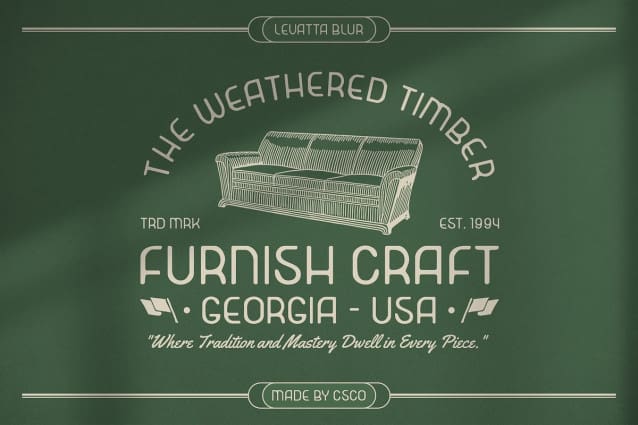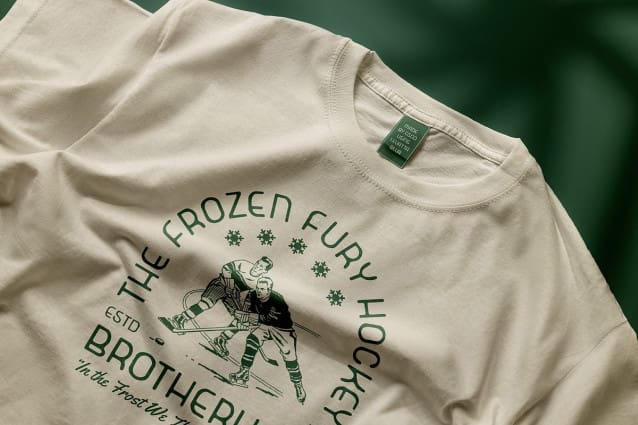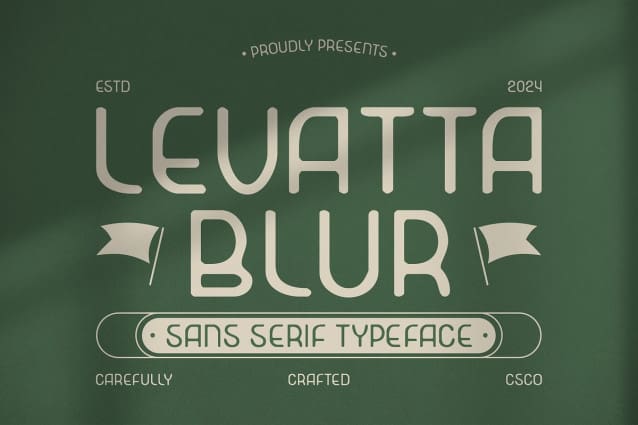
Levatta Blur Font
Levatta Blur Font is a modern sans serif font that features a striking geometric design, characterized by sharp lines and balanced proportions. Its clean and minimalist aesthetic gives it a futuristic appearance, making it an ideal choice for projects that demand a contemporary touch. The geometric shapes not only enhance the font’s visual appeal but also contribute to its overall readability, ensuring that your message is conveyed with precision and clarity.
Dynamic Blur Effect for Enhanced Depth Wrapped in a sophisticated blur effect, Levatta Blur takes on a dynamic and engaging quality. This unique feature adds dimension and depth to each letterform, creating a sense of movement that captures attention. The interplay between the sharp geometric lines and the soft blur creates a harmonious balance, making the font visually stimulating while maintaining its minimalist integrity.
Perfect for Innovative Design Projects This versatile font is well-suited for a variety of design projects that require modern and innovative elements. Whether it’s for branding, websites, or marketing materials, Levatta Blur stands out as a powerful tool for conveying a contemporary style. Its clarity and striking design make it perfect for applications where impact and visual engagement are paramount, ensuring that your designs resonate with your audience.